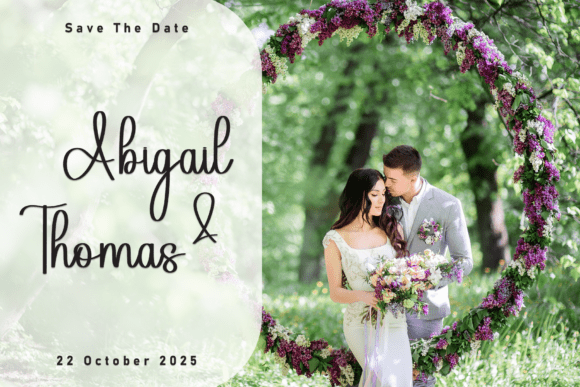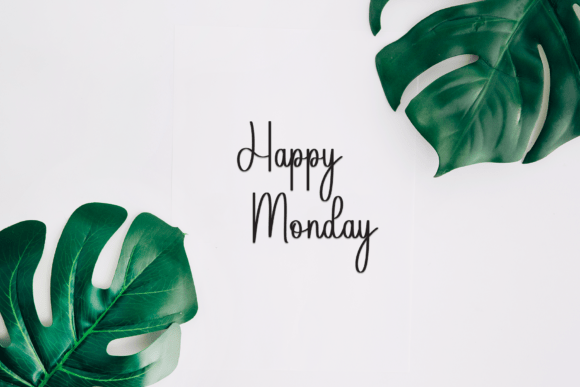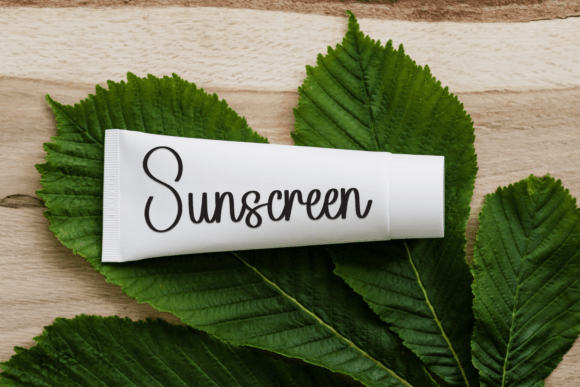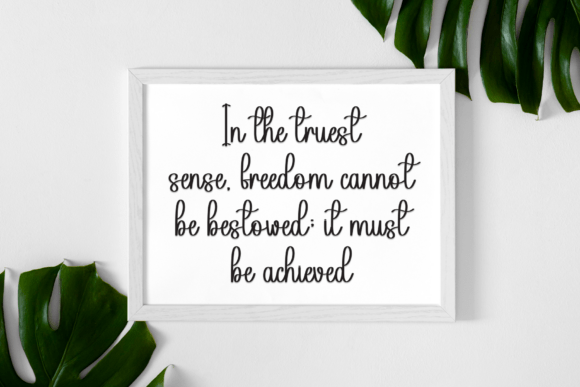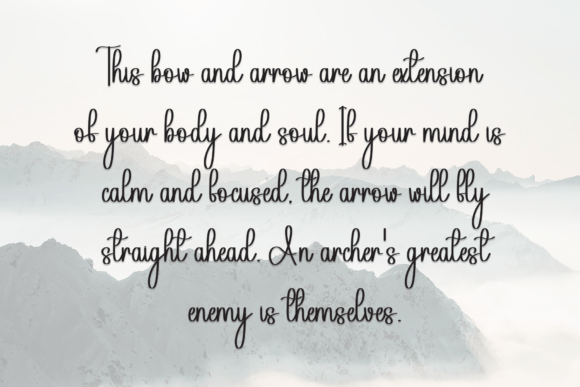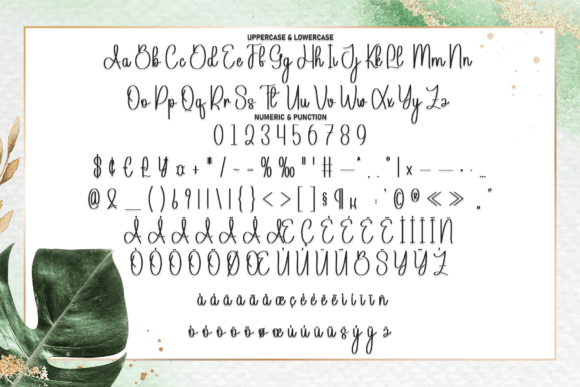
Discover the Perfect Signature Style with Background Signature Font
Have you ever poured your heart and soul into a design, only to feel like something is missing? Maybe it’s the perfect font – one that captures the essence of your personal brand and leaves a lasting impression on your audience. For designers, finding that perfect font can be a game-changer. That’s where the Background Signature Font comes in.
This luxury handmade script font is designed to emulate natural handwriting, giving your designs a personal, high-end touch. With its flowing, elegant aesthetic, the Background Signature Font is perfect for branding, signature logos, wedding invitations, product packaging, and more. Whether you’re creating a business card or a personal brand identity, this font delivers sophistication with a handcrafted feel that’s sure to impress.
Background Signature Font Key Features
- Font Style: A unique, cursive script font designed for background use, adding a touch of elegance and sophistication to any design.
- Size: 1,000 glyphs, providing an extensive character set for diverse language support and creative expression.
- Unique Characteristics: The font’s intricate design and subtle flair make it perfect for adding a personal touch to signatures, watermarks, and other background elements.
Designer Review: Background Signature Font
Overall, I was quite impressed with the Background Signature Font, but as with any design element, there are pros and cons. ✨ Here’s what I liked:
- Unique aesthetic: The font’s stylized background design elements added a touch of elegance to my designs.
- Flexibility: It worked well in both digital and print formats, making it a versatile choice for various projects.
- Customization options: The font allowed for easy customization of colors and background textures, giving me more creative control.
- Readability: At times, the background elements overlapped with the text, making it harder to read.
- Limited font sizes: The font didn’t scale well to larger sizes, which was a concern for some of my projects.
- Compatibility issues: I experienced some compatibility issues with older versions of certain software, which was frustrating.
Overall, I would give the Background Signature Font 4 out of 5 stars. While it’s a beautiful and versatile font, its limitations held me back from giving it a perfect score. With some tweaks and improvements, it has the potential to be a top-notch design element.
Getting the Most Out of Background Signature Font
To get the most out of Background Signature Font, experiment with different font sizes, colors, and styles to match your brand or personal style. You can also use it in combination with other design elements, such as images or graphics, to create a unique and eye-catching signature.
Background Signature Font is commonly used in business cards, letterheads, and social media profiles. It can also be used in digital signatures for documents and emails, or as a decorative element in web design.